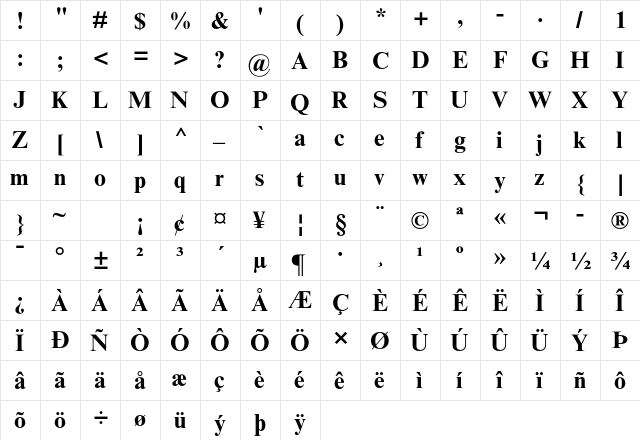
Times New Roman MT Std Bold
| Designer | Starling Burgess, Victor Lardent, Stanley Morison |
Design Context for Times New Roman MT Std Typeface
Times New Roman MT Std offers clean, dependable letterforms without strong stylistic allegiance, making it a practical choice for designers who need flexibility. Its bold stroke weight gives it real presence on the page.